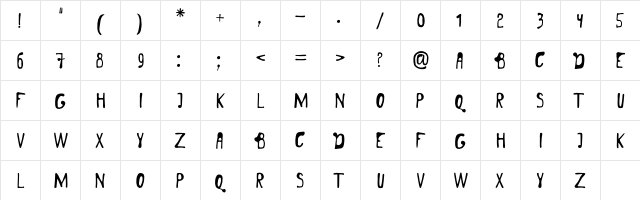
London Regular
| Foundry | Olga Kozlova, Jovanny Lemonad |
| Designer | Olga Kozlova |
Design Context for London Typeface
London is a composed and adaptable typeface that performs quietly and consistently across a wide range of design contexts.